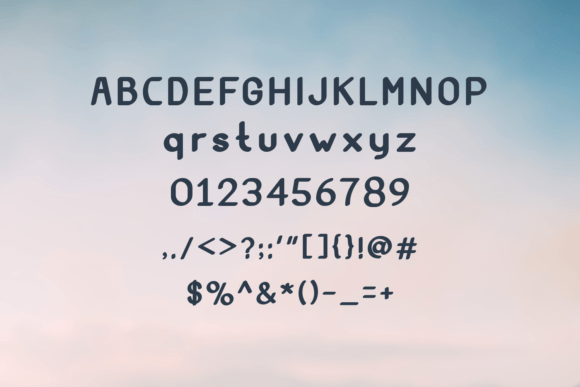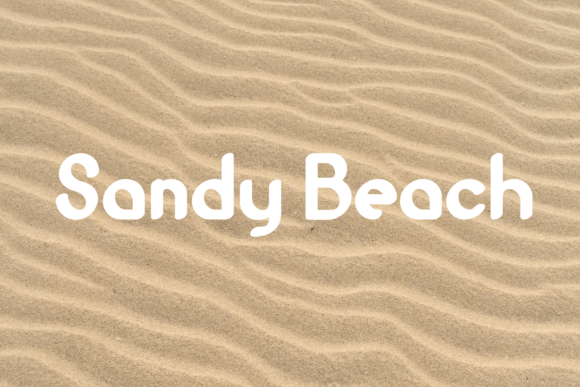
Introducing Gearfours Font: A Cool and Unique Sans Serif Addition to Your Library
In the vast world of typography, finding the perfect font that stands out from the crowd can be a daunting task. However, if you’re on the lookout for a typeface that combines coolness, uniqueness, and versatility, look no further than Gearfours Font. This sans serif font is meticulously crafted with high attention to detail, making it an excellent asset for any designer or crafter looking to elevate their creations.
What Makes Gearfours Font Stand Out?
Gearfours Font is not just another addition to the sans serif family; it’s a game-changer. Its clean lines and modern aesthetic make it perfect for a wide range of projects, from digital applications like websites and mobile apps to print materials such as brochures, posters, and business cards. The font’s neat and detailed design ensures that it remains legible even at smaller sizes, making it incredibly versatile.
Key Features of Gearfours Font
- Unique Sans Serif Design: Gearfours boasts a distinctive sans serif style that sets it apart from more traditional typefaces. Its uniqueness is not just in its appearance but also in its ability to bring a fresh perspective to any design project.
- Highly Detailed: The creators of Gearfours have paid meticulous attention to detail, ensuring that every letterform is not only aesthetically pleasing but also highly legible.
- Versatility: Whether you’re working on a digital project or a print-based design, Gearfours can adapt seamlessly. Its neutral appearance makes it an excellent choice for a wide range of topics and themes.
- Enhances Creations: With Gearfours, you can transform your designs, giving them a modern and fresh look that captures attention. It’s an excellent way to ensure your work stands out in a crowded marketplace.
Who Can Benefit from Gearfours Font?
Gearfours Font is an invaluable resource for a variety of professionals and enthusiasts, including:
- Graphic Designers: Looking for a modern sans serif font that can elevate their designs.
- Web Designers/Developers: Seeking a clean and legible font for their websites and web applications.
- Digital Artists and Crafters: Needing a unique font for their digital art, blogs, or social media content.
- Marketers and Brand Strategists: Aiming to create a distinctive brand voice through typography.
How to Make the Most of Gearfours Font
To truly leverage the potential of Gearfours Font, consider the following tips:
- Experiment with Sizes: While Gearfours maintains its legibility at smaller sizes, experimenting with different sizes can help you find the perfect balance for your design.
- Play with Colors: The neutral design of Gearfours makes it a perfect canvas for a wide range of colors. Don’t be afraid to experiment with different color schemes.
- Mix and Match: Gearfours can be paired with other fonts for interesting effects. Try combining it with a serif font for a classic contrast or with another sans serif for a modern, layered look.
Gearfours Font is more than just a typeface; it’s a design asset that can transform your projects with its cool and unique sans serif style. Its versatility, legibility, and detailed craftsmanship make it an essential addition to any designer’s or crafter’s font library. Whether you’re working on a digital project or a print-based design, Gearfours has the potential to enhance any creation, making it a valuable resource for anyone looking to elevate their design work.